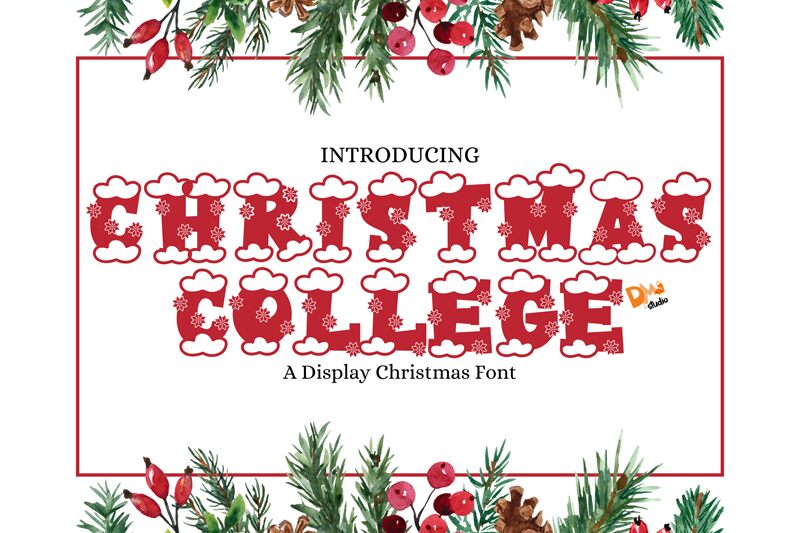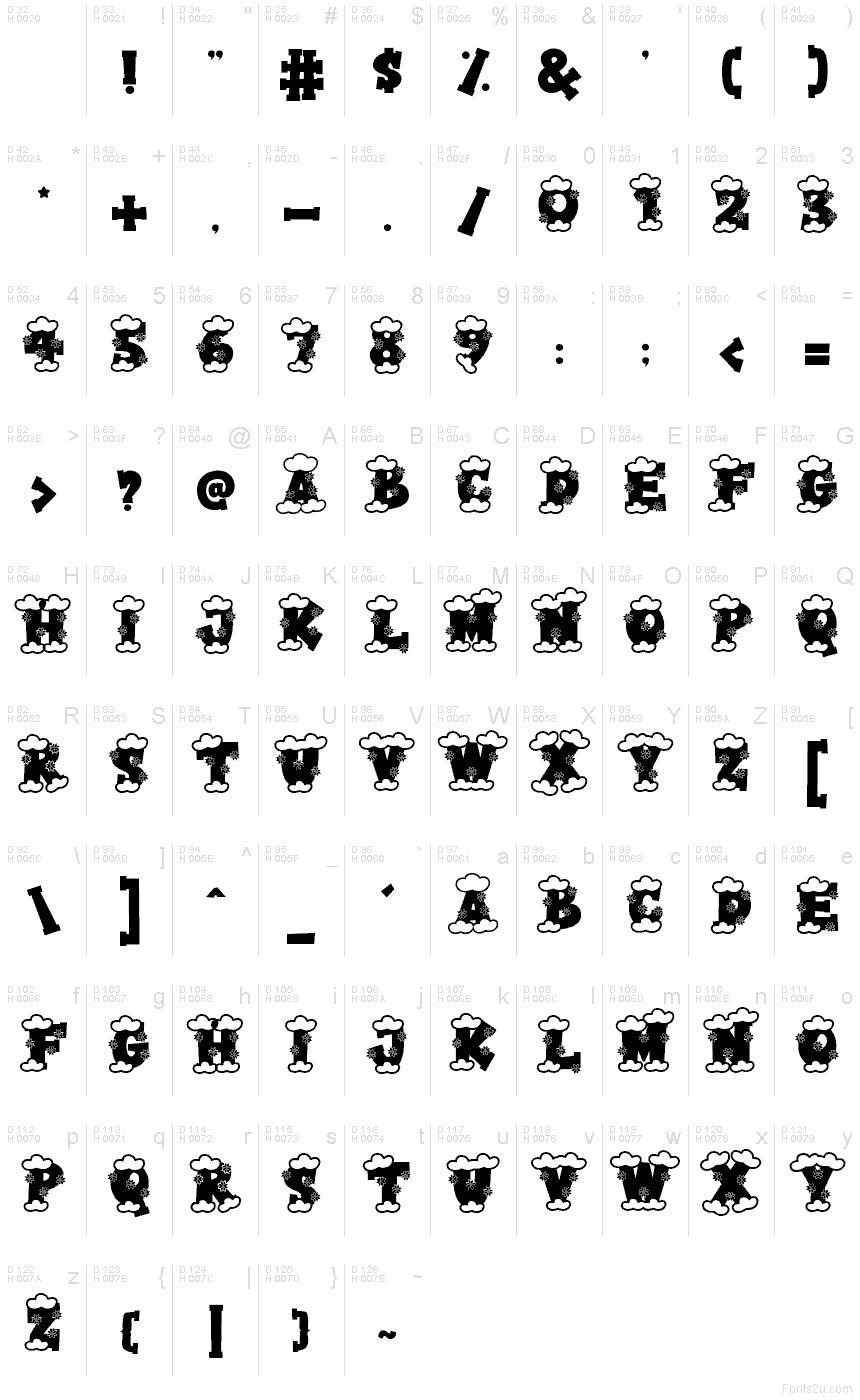
Christmas College
Christmas College font by DM Letter Studio - Dimas Prasetyo is a free holiday christmas typeface that turns every word into a snow-dusted headline. Bold varsity-style letters are packed with fluffy, cloud-like snow shapes, giving your layouts a playful, over-the-top winter energy. It feels like school spirit week collided with a snowstorm—chunky, fun, and impossible to miss on the page or screen.
Using Christmas College, you can instantly brand Christmas party posters, school winter events, kids’ crafts, greeting cards, gift tags, and festive social media graphics. This free font shines at large sizes, where the inky outlines and bubbly “snow” texture really pop. For balance, pair it with a clean sans serif for body text to keep your designs readable while Christmas College grabs all the attention.